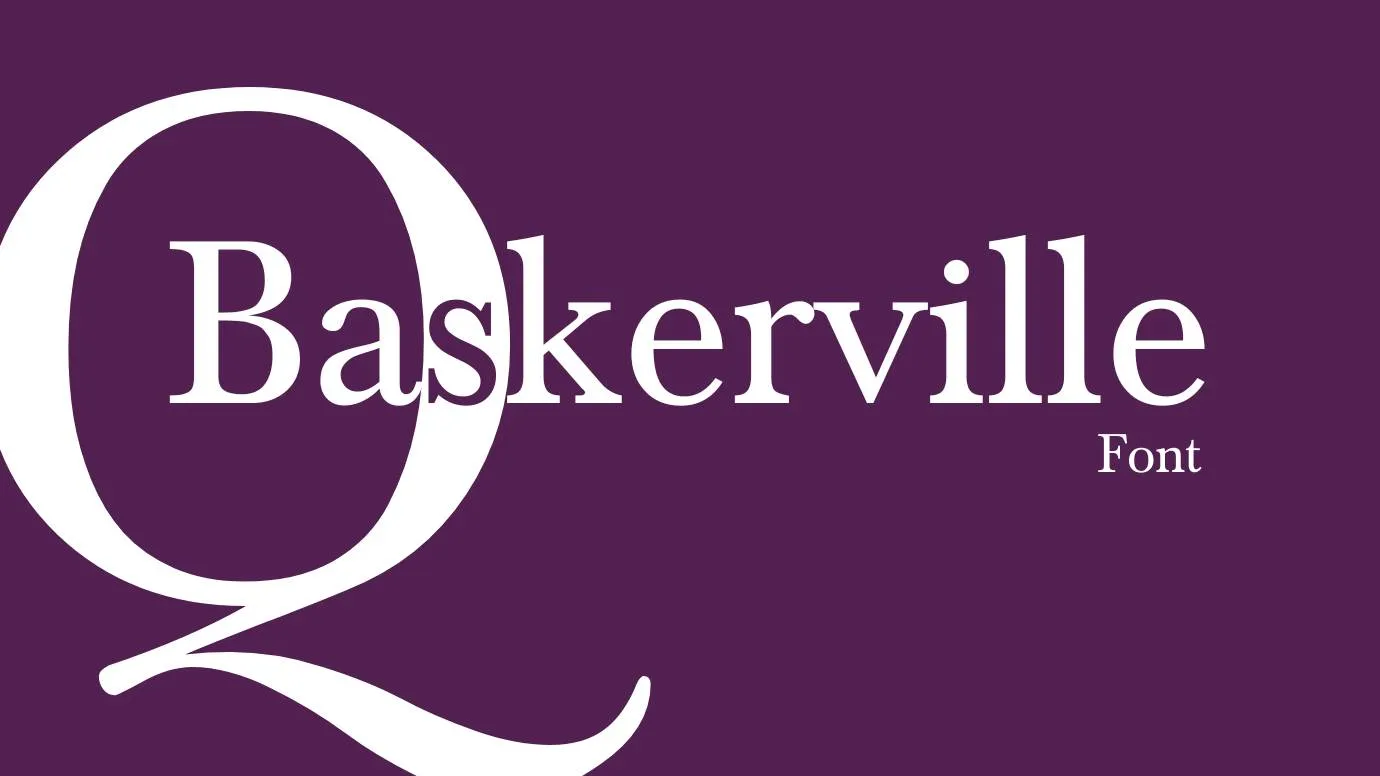
Baskerville Font Family a classic Transitional Serif typeface, crafted by the renowned British typeface designer and entrepreneur John Baskerville. This font was published through Mergenthaler Linotype Company back in 1757.
Soon after the release of this font, it becomes an amazing and appealing typeface for all different aspects of designs.  This font is a great example of the old-serif typeface and this provides amazing results with little ballerina font and its styles.
NameBaskerville Font
TypeTransitional serif
DesignerJohn Baskerville
TypeRegular, Textured